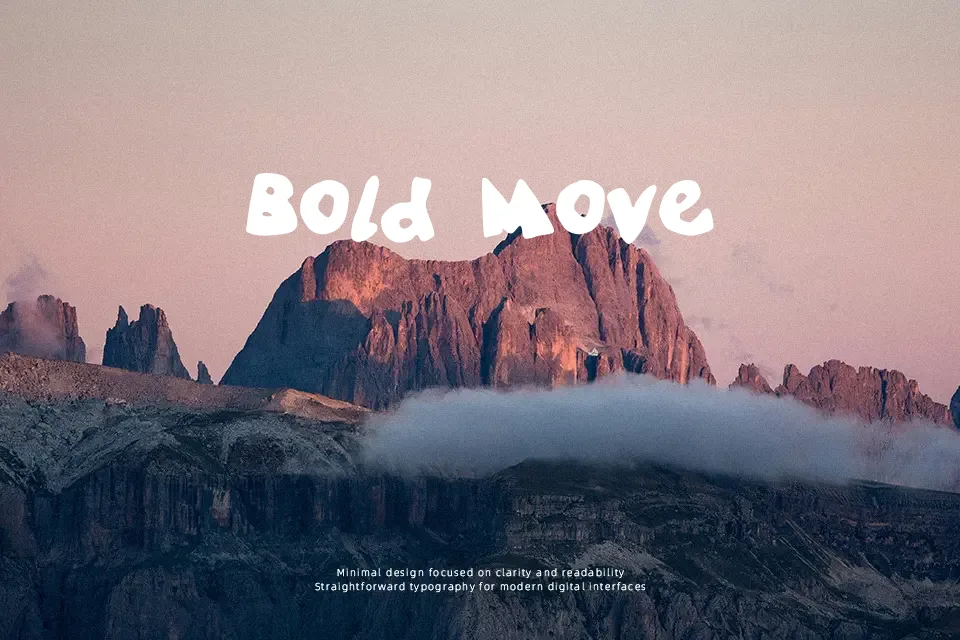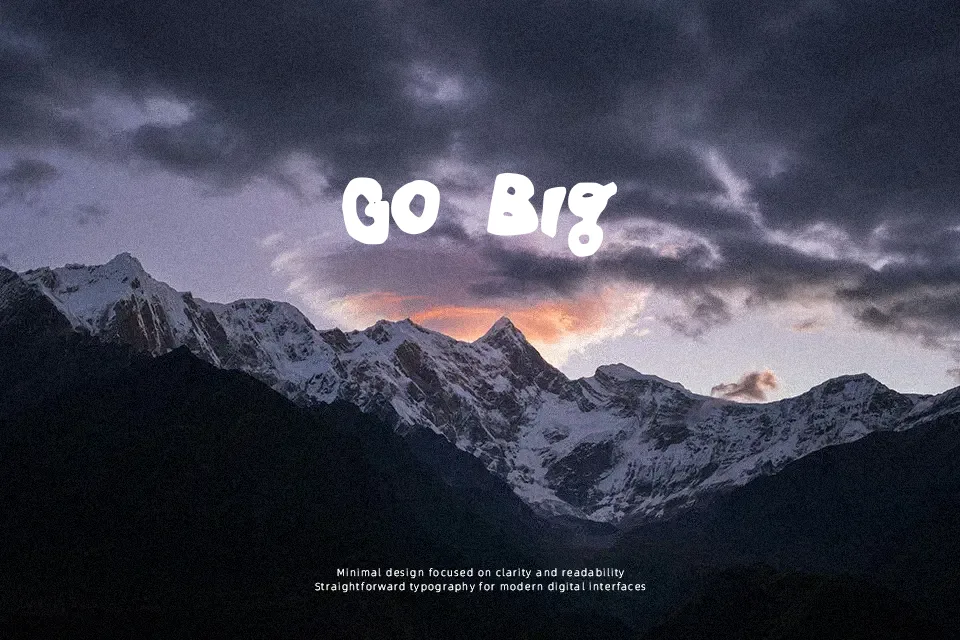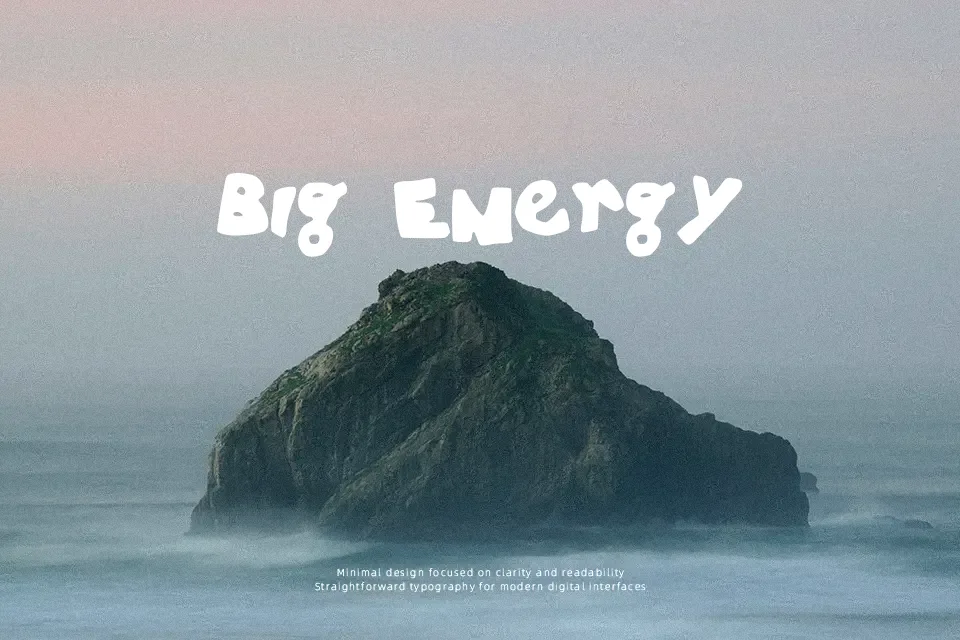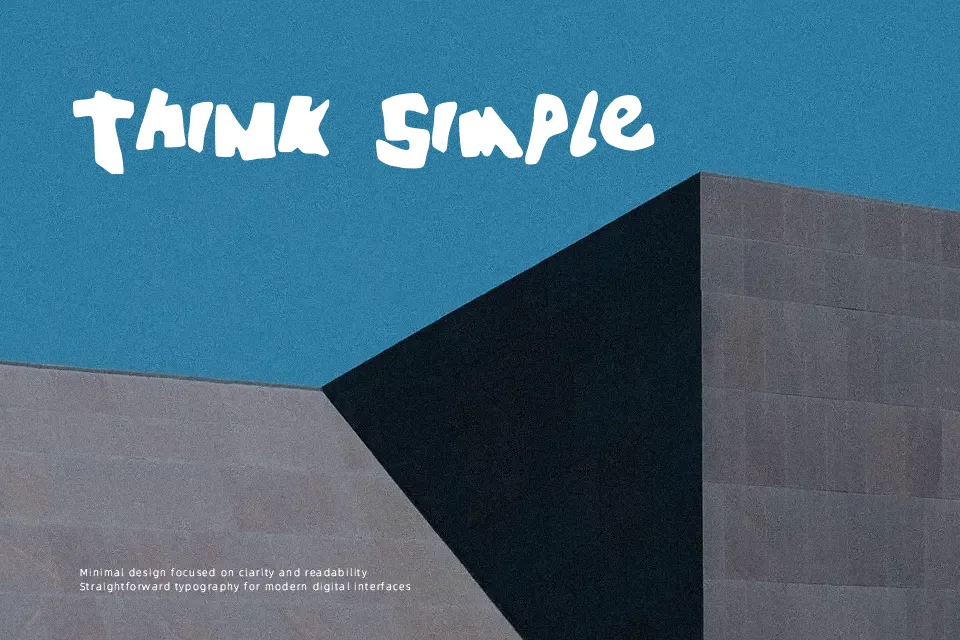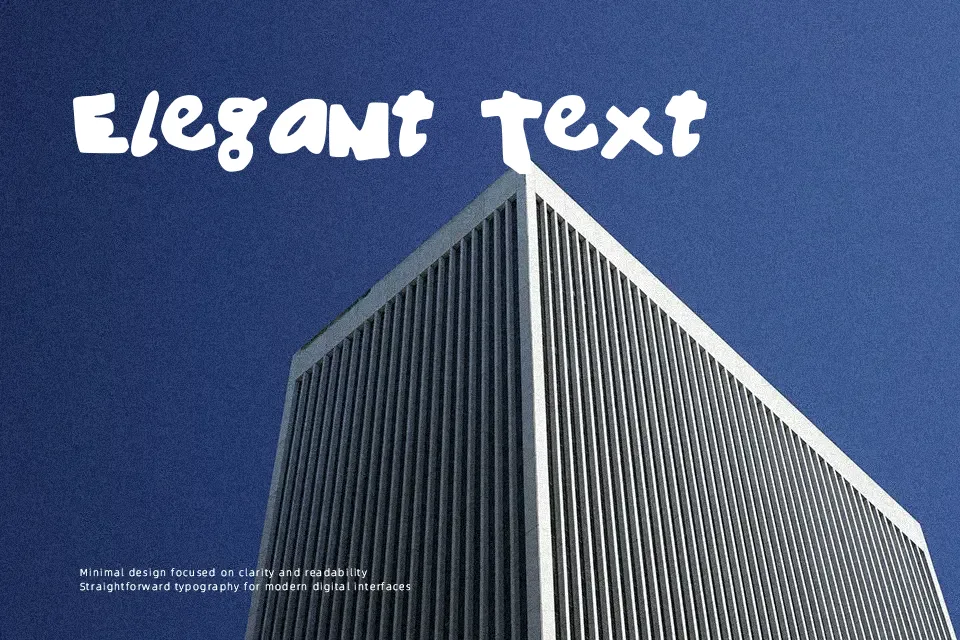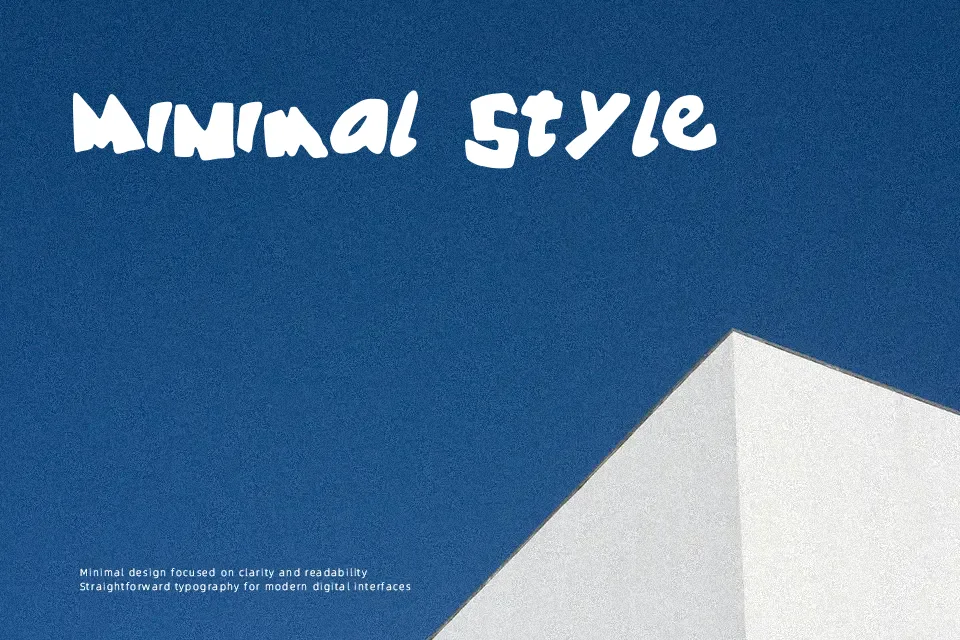
Spookyhouse Font
Spookyhouse Font presents an animated cartoon aesthetic shaped by irregular contours, bold stroke weights, and exaggerated character widths. The design features loose spacing and bouncy baseline alignments that give each glyph an energetic, illustrative presence across large display formats. While the letterforms maintain immediate visual impact in titles and banners, the heavy asymmetry and decorative distortion reduce legibility when scaled down to smaller sizes. Extended reading environments also suffer due to the lack of neutral rhythm. Consequently, the typeface excels across seasonal marketing assets, themed packaging, and party flyers, provided it remains reserved strictly for prominent headline compositions.
Best For: Halloween party flyers, children’s game titles, animated video titles, seasonal candy packaging
Not Ideal For: continuous body text, corporate reports, small interface labels, legal documents
Perfect for halloween, headline, and kids, with a bold and cartoon style.